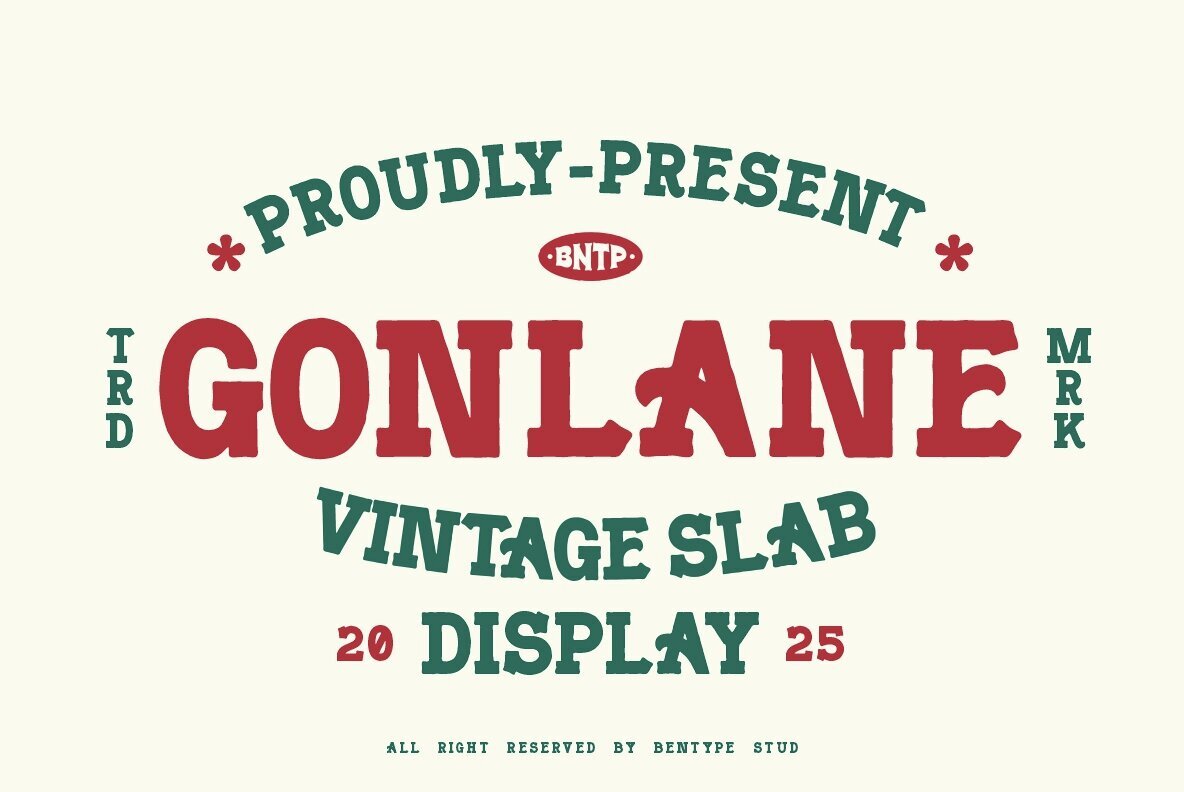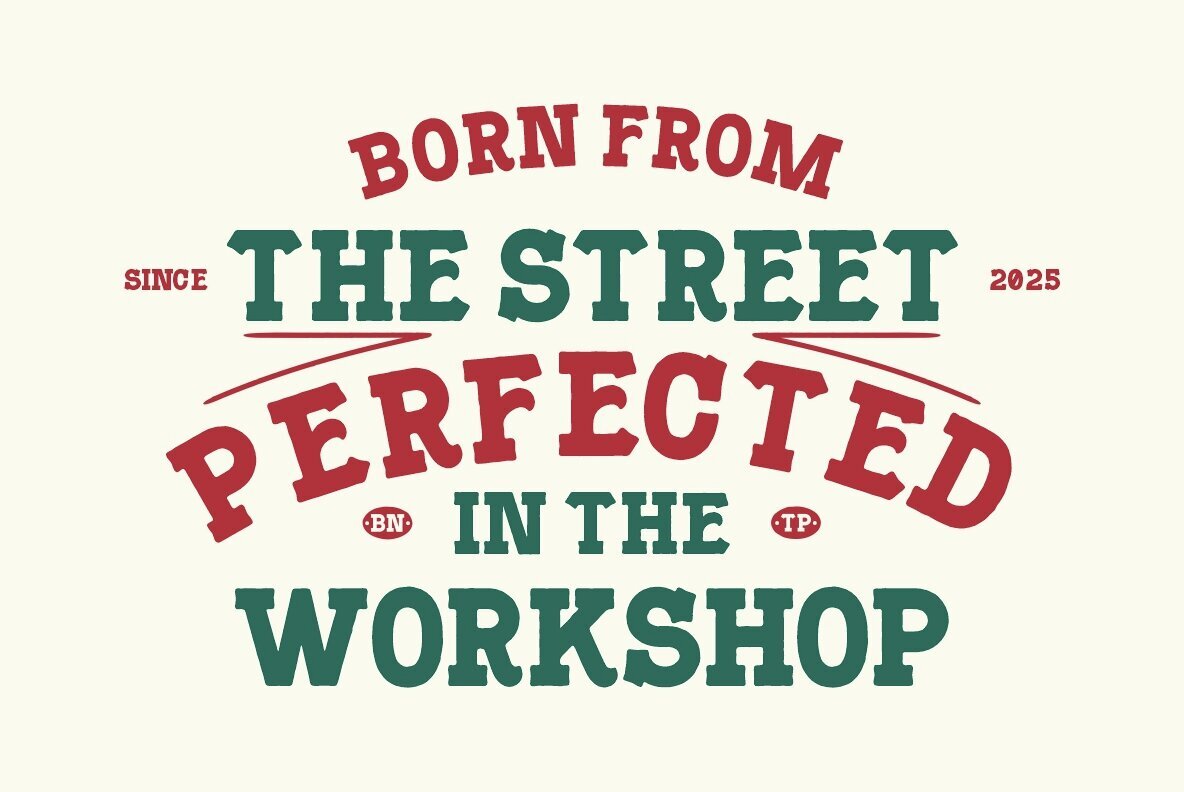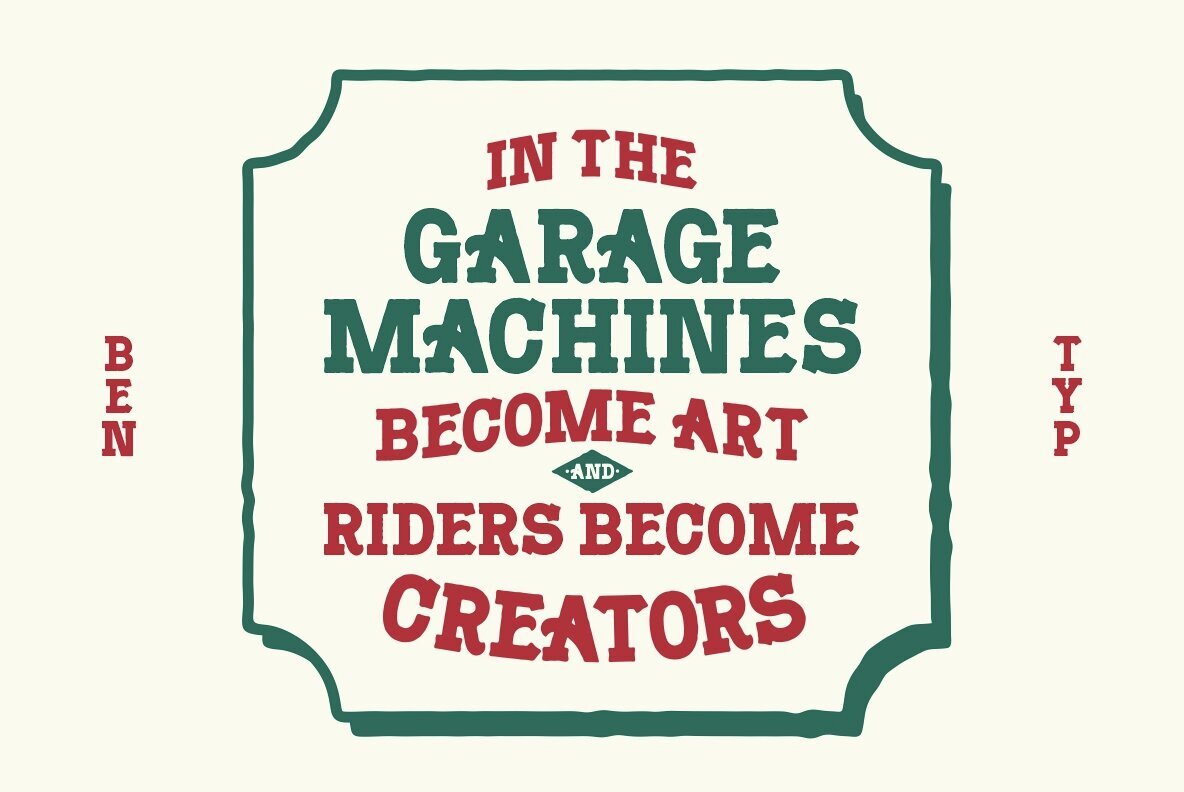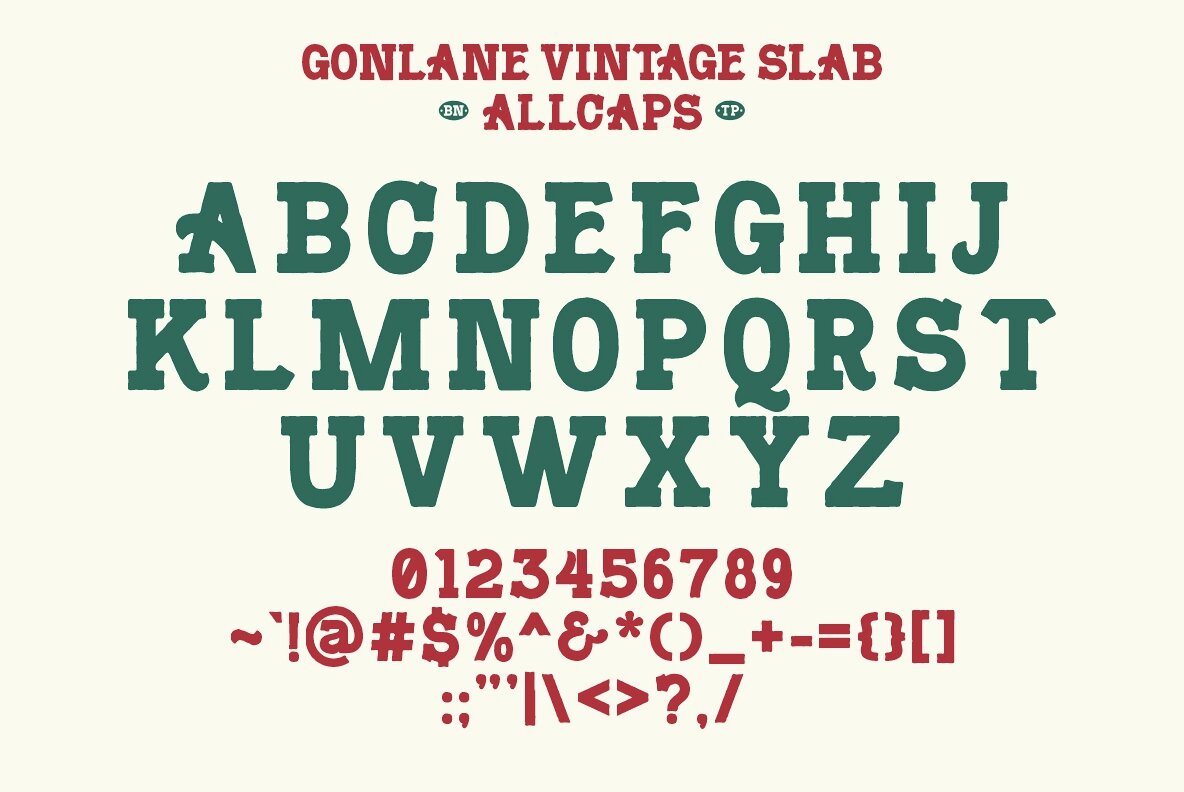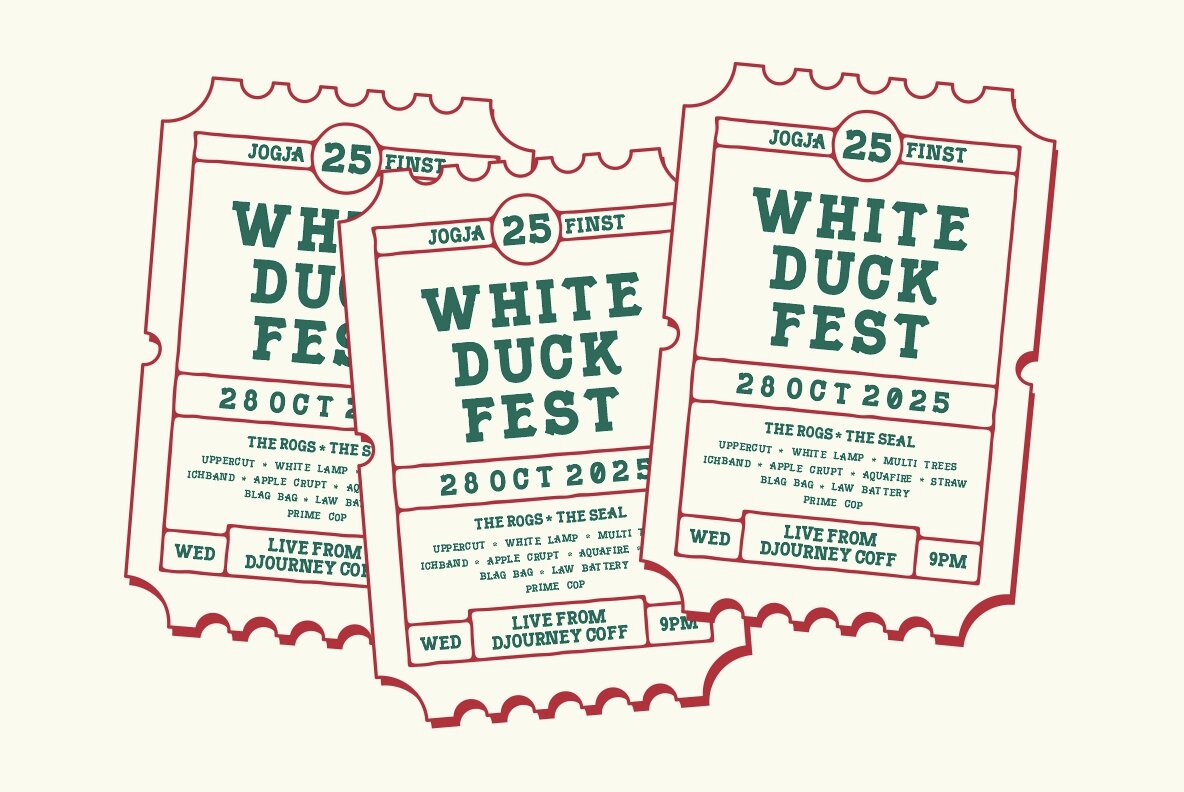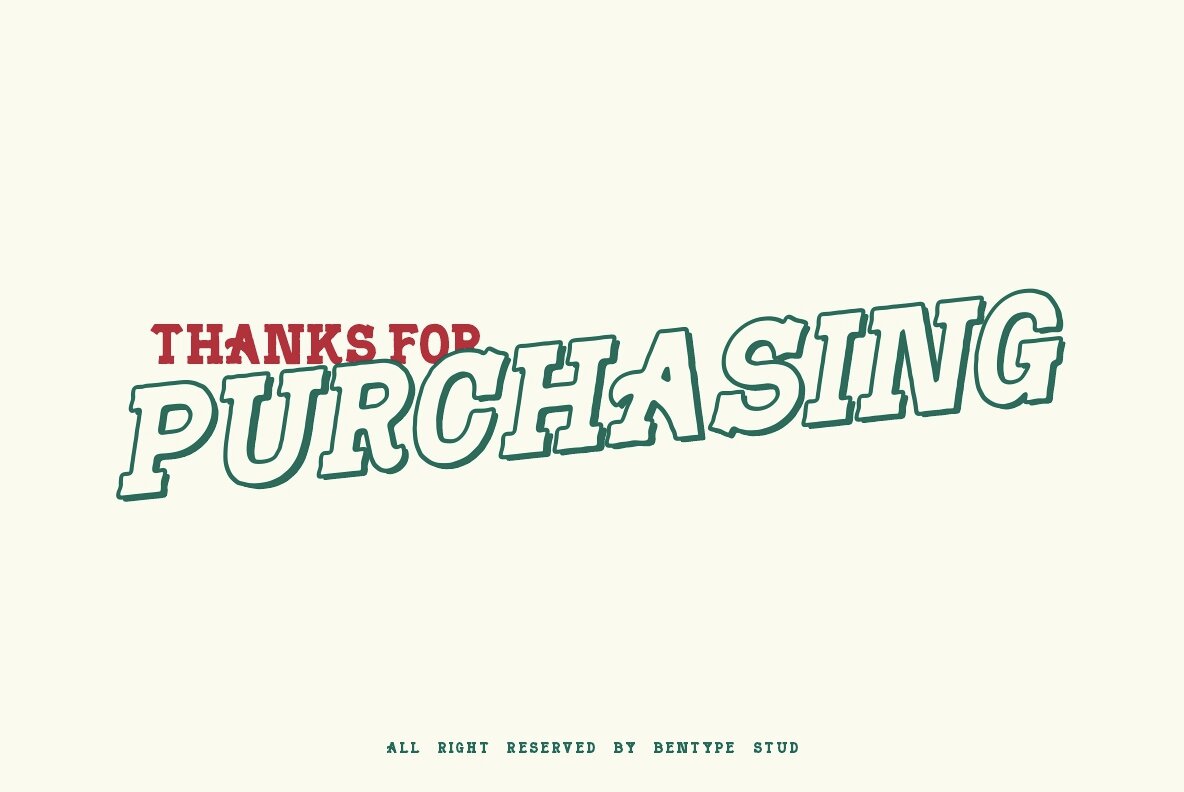
Gonlane Font
Gonlane
Gonlane instantly recalls the bold energy of classic Western saloon signs and rodeo posters. Its strong, blocky serifs and solid lettering create a powerful presence, making it an ideal choice for design projects needing vintage character and impact. This typeface excels in logos, packaging, signage, and editorial layouts, lending authenticity and confidence to every application. With meticulously crafted, sharp details and commanding letterforms, Gonlane stands out while preserving a timeless appeal. The font’s structure ensures legibility and a rugged, enduring aesthetic that suits a wide range of creative uses.Gonlane – Vintage Slab Display Typeface